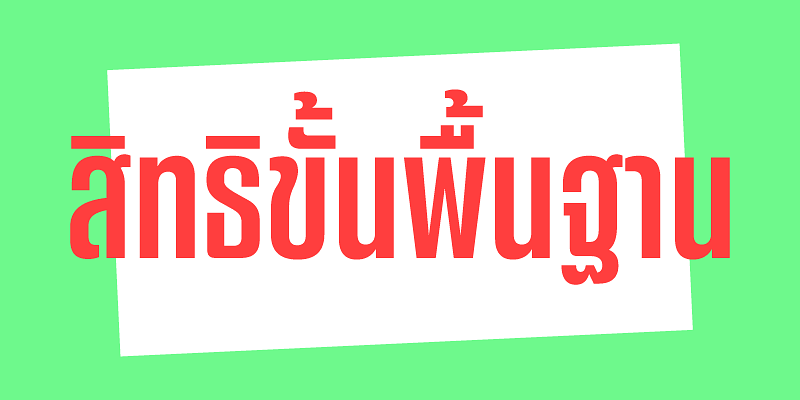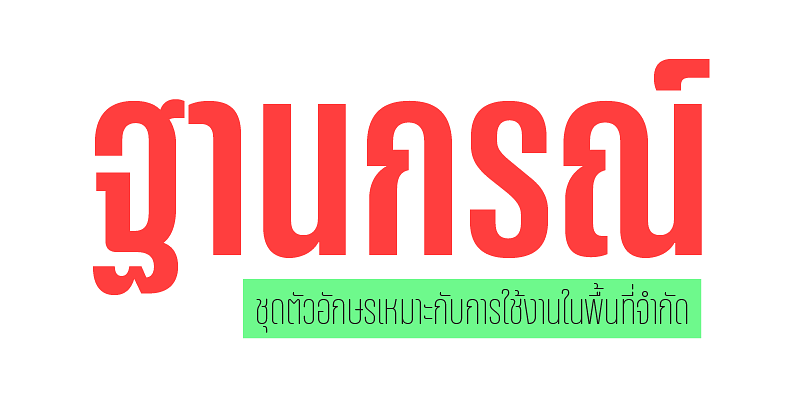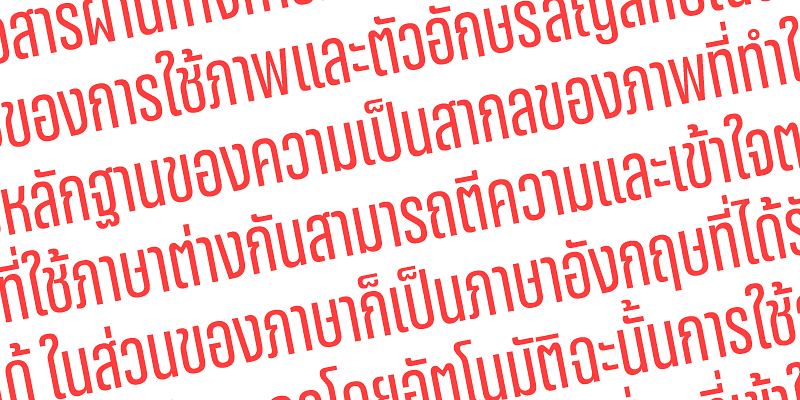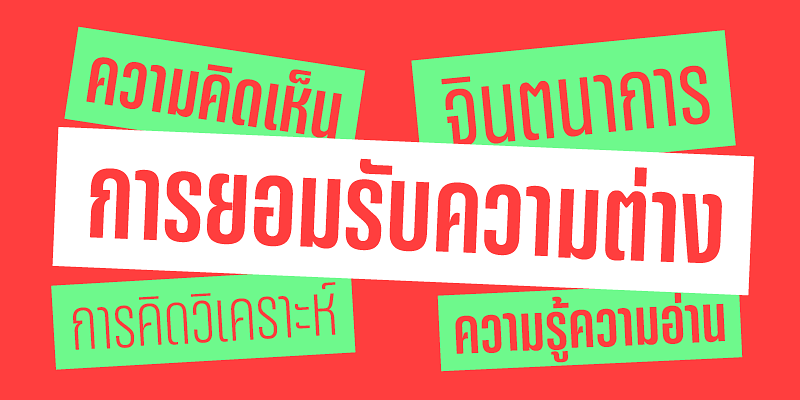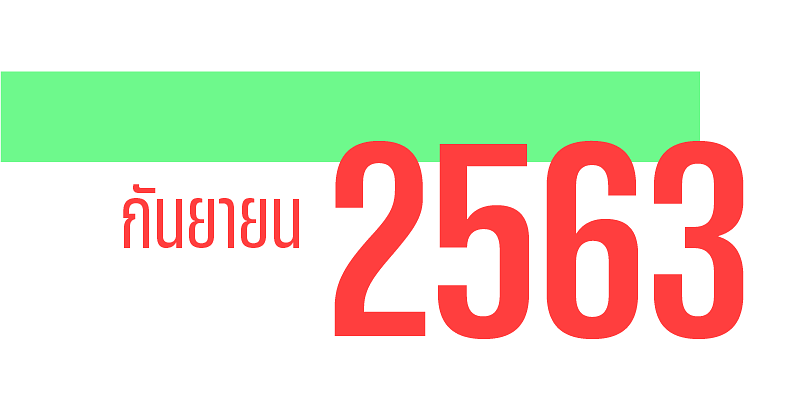
A loopless, condensed Sans Serif typeface that is designed for use in limited spaces. This typeface solves both communication and stylistic issues despite being designed to be bold and condensed.